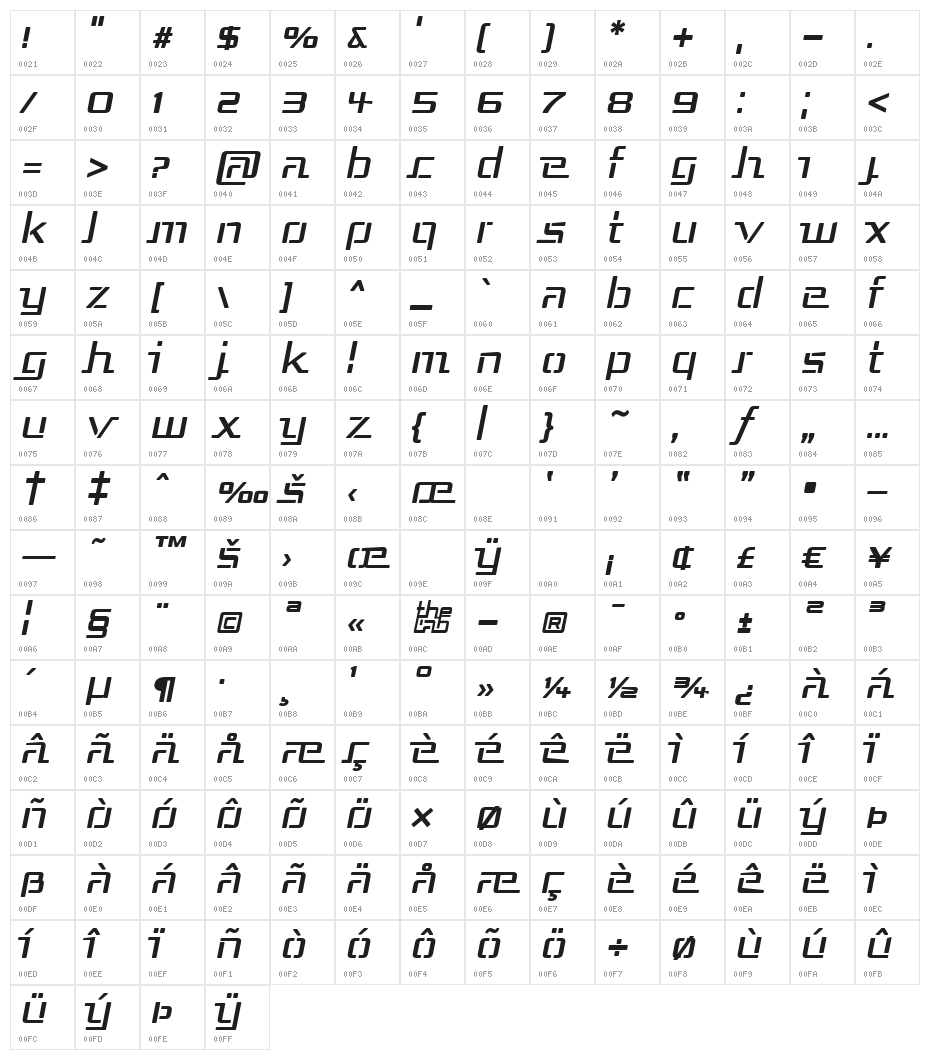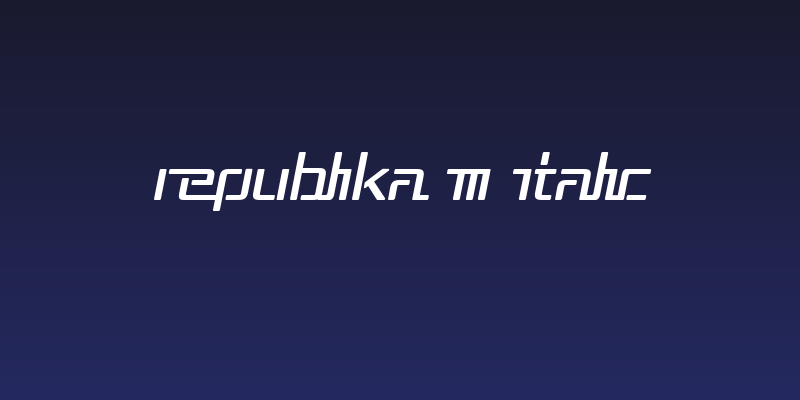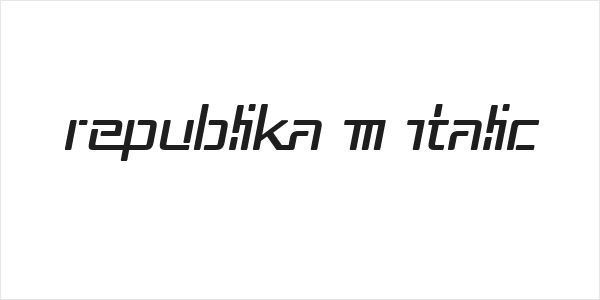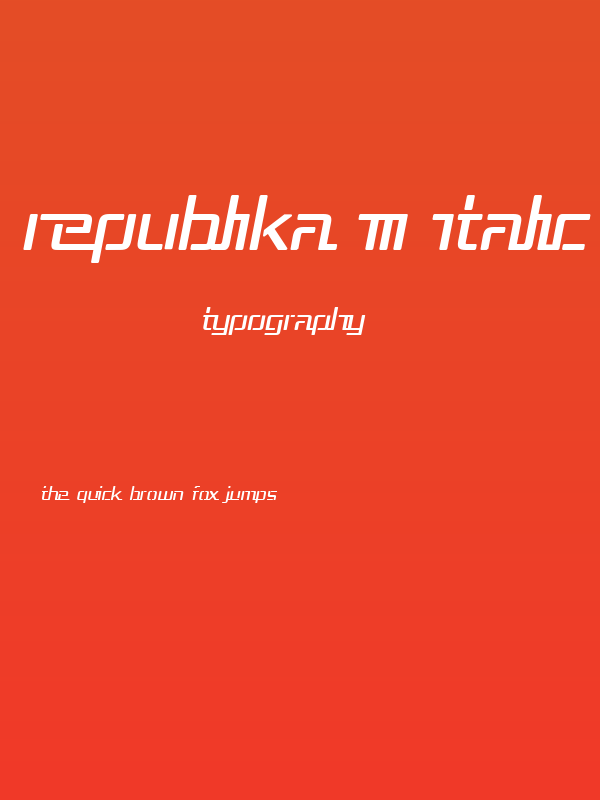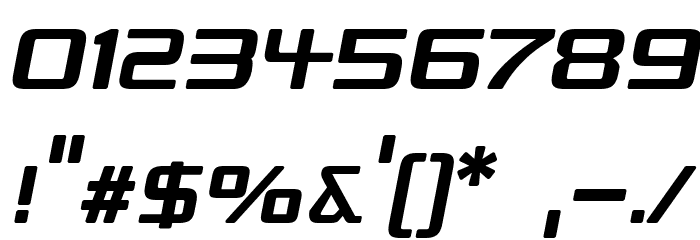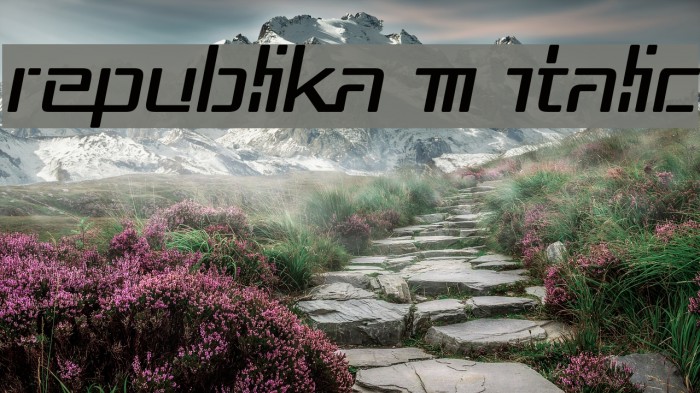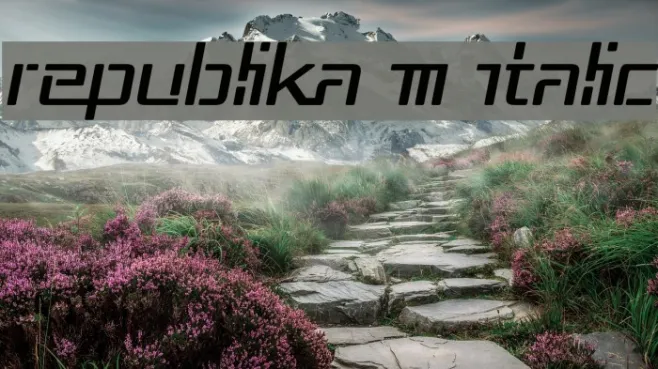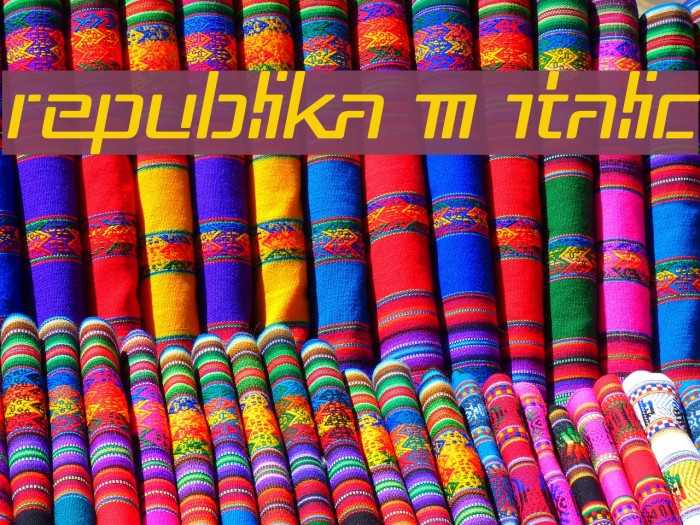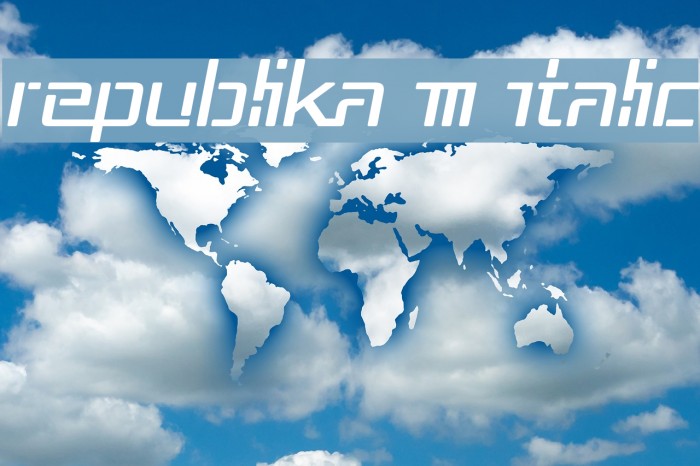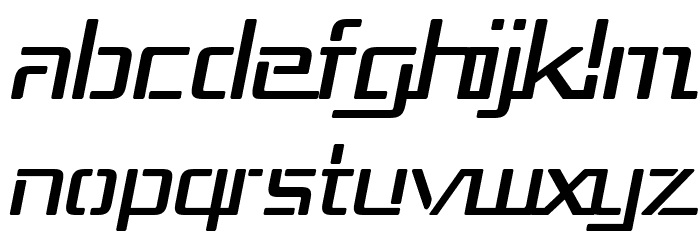
Republika III Italic Font
Republika III Italic Description
This font features a sleek, modern design with a distinct italic slant, giving it a dynamic and forward-moving appearance. The characters are constructed with a geometric precision, incorporating sharp angles and clean lines that convey a sense of speed and efficiency. The uppercase and lowercase letters maintain a consistent style, with the lowercase letters mirroring the uppercase in form but with a slightly reduced height. The numerals are bold and easily readable, matching the overall aesthetic of the alphabet. Special characters are included and follow the same design principles, ensuring uniformity across all glyphs. The font's futuristic look makes it ideal for projects that require a contemporary and cutting-edge feel.
| Overall Style | Futuristic, Dynamic |
| Use Case | Logos, Headlines, Branding |
| Proposed Projects | Ideal for technology branding, sports team logos, automotive advertisements, and sci-fi themed designs. |